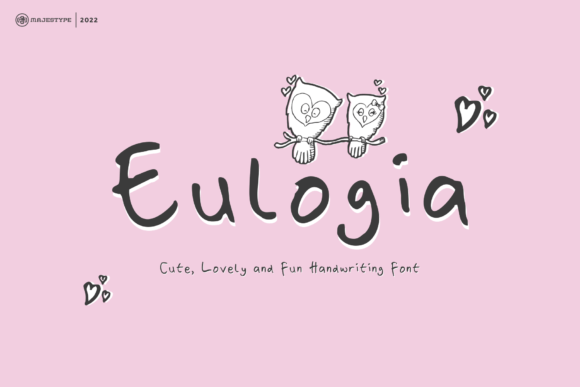
Dive into the captivating world of Eulogia Font, a script typeface crafted with love and passion to bring joy, fun, and a unique flair to your designs. This exquisitely handwritten font, born from the strokes of markers, dances with elegance and charm, adding a personal touch to every project.
Eulogia Font is a treasure trove of creativity, a font woven with the threads of happiness and laughter. Its charming curves and playful strokes are like tiny notes of music, composing a symphony of visual delight. It's the perfect font for comics, bringing life to your characters and their adventures.
With Eulogia Font, your displays will radiate with warmth and personality. Its whimsical nature captivates, drawing attention and making your messages unforgettable. From posters to flyers, Eulogia Font transforms ordinary words into works of art, leaving a lasting impression.
Eulogia Font's versatility knows no bounds. Whether you're designing titles that demand attention or creating children's designs filled with magic and wonder, this font weaves its enchanting spell. Its playful spirit dances across the page, captivating young minds and igniting their imaginations.
Step into the world of Eulogia Font and discover a font that is more than just letters on a page. It's an expression of creativity, a brushstroke of joy, and a melody of visual delight. Let Eulogia Font paint your designs with a palette of happiness and charm. Make your messages sing, your titles dance, and your comics come alive. Embrace Eulogia Font and embark on a creative journey filled with smiles, laughter, and unforgettable designs.